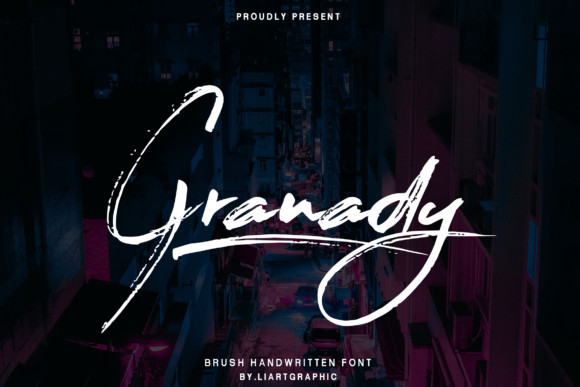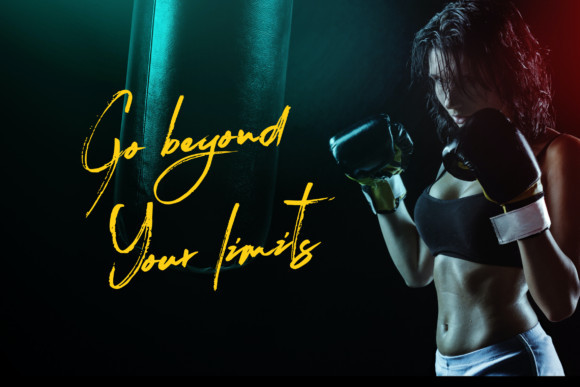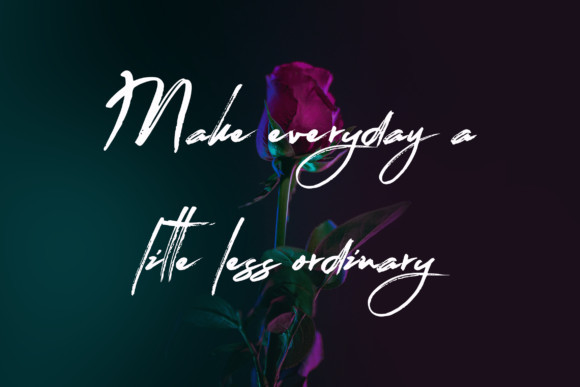
Granady Font
Granady is a unique and rough textured brush handwritten font. This original look will appeal to a wide range of crafty ideas, from letterheads and titles, to stationery.